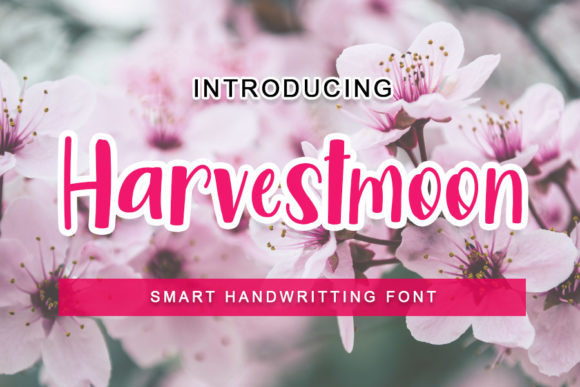
Introducing Harvestmoon Font, the ultimate tool to add a touch of magic to your designs! This enchanting script font, lovingly crafted by shiddiq.art, will transform your product titles into captivating works of art that dance off the page.
Harvestmoon's playful personality is perfect for capturing the attention of potential customers scrolling through your e-commerce store. Its whimsical swirls and charming curves create a sense of wonder and enchantment that draws the eye and sparks imagination.
With Harvestmoon, you can give your products a unique identity that sets them apart from the crowd. Whether you're showcasing handmade crafts, enchanting jewelry, or mesmerizing art prints, this font will elevate your product titles to new heights.
Imagine your product titles adorned with Harvestmoon's graceful swashes, inviting customers on an unforgettable journey through your collection. Each letter dances and flows, creating a visual symphony that captivates the senses.
Harvestmoon Font is more than just a font; it's an expression of creativity and imagination. It's a font that will inspire you to dream big and bring your most enchanting ideas to life. Unleash the power of Harvestmoon today and watch your product titles bloom with creativity!